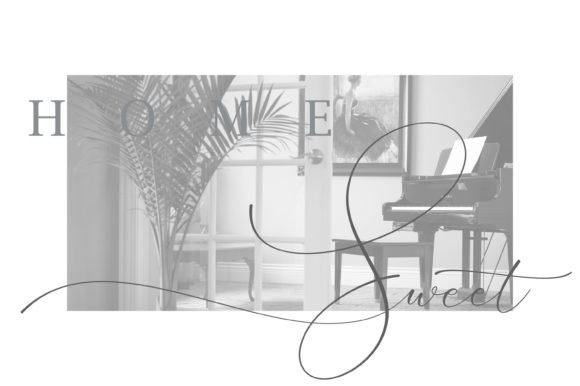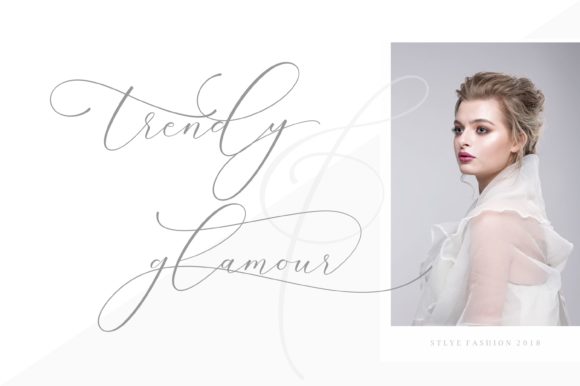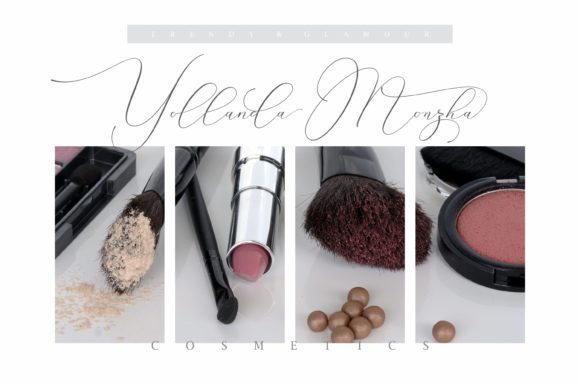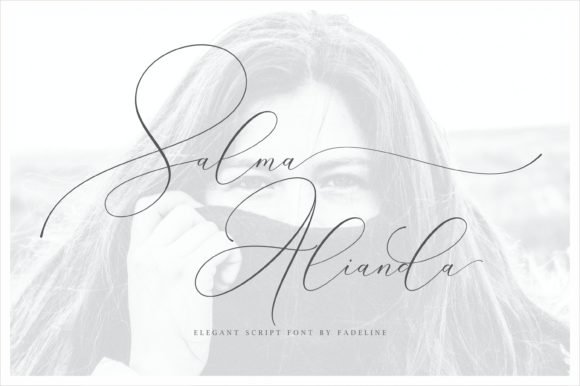
Introduction to Salma Alianda Font
Salma Alianda is a classic and timeless handwritten font with incredibly wonderful swashes.
It will effortlessly add a romantic spark to any crafts idea .
Key Features of Salma Alianda Font
Why Choose Salma Alianda Font?
Salma Alianda Font offers exceptional quality and versatility, making it a valuable addition to your design toolkit. Whether you’re creating for personal projects or commercial use, Salma Alianda Font delivers professional results.